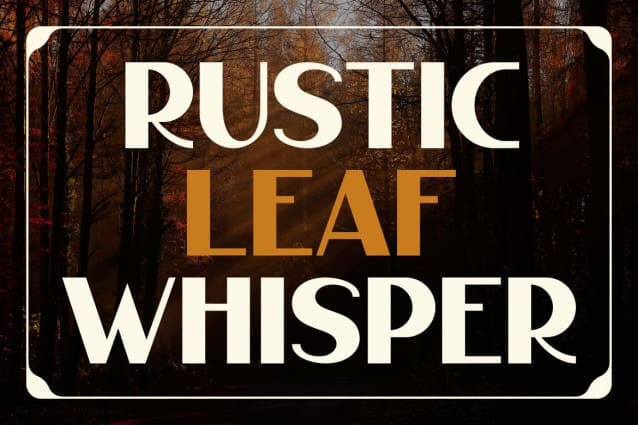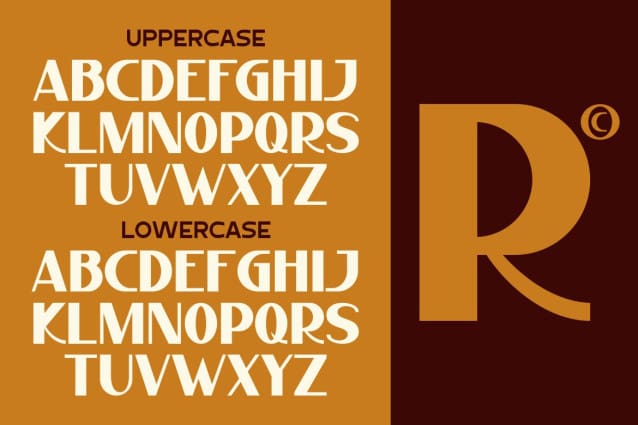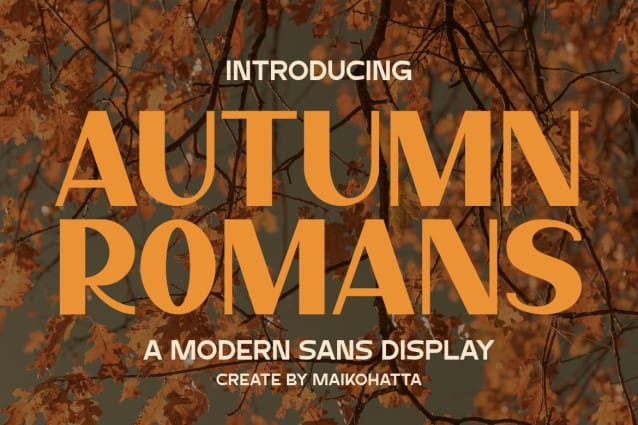
Autumn Romans Font
Autumn Romans Font – Modern Font is a bold and authentic display font. The font is suitable for any branding project like logo, template design, and many more. outstanding in a wide range of contexts.